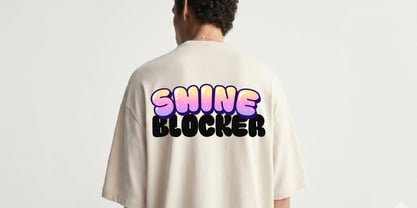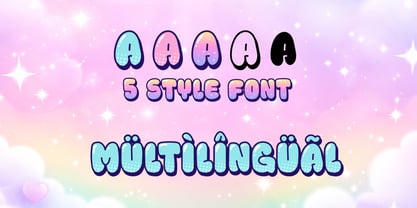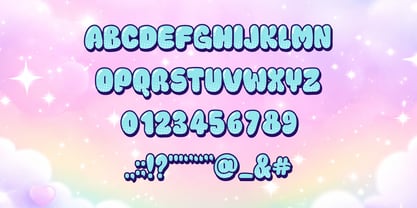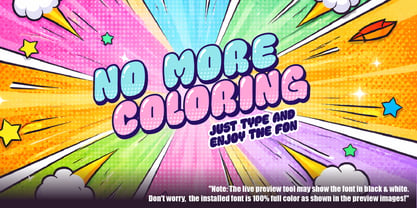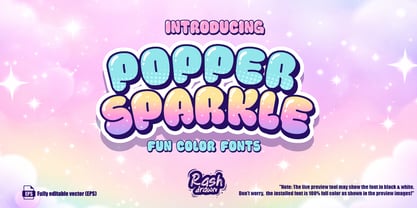
Popper Sparkle
by Rashdrawn
The Popper Sparkle Font Family was designed by Dadan Wildan and published by Rashdrawn. Popper Sparkle contains 5 styles and family package options. More about this family
Add a Splash of Joy and Magic to Your Designs! Meet POPPER SPARKLE, Color fonts that blends playful bubble shapes with magical textures. Whether you want the fresh, modern look of a hexagonal pattern or the dreamy, enchanting vibe of a star-studded gradient, this font has it all in one package! Forget about complex layering or manual coloring. POPPER SPARKLE allows you to type directly in full color, giving your work an instant 3D, glossy, and professional finish that pops off the screen. What You Get: Five Unique Styles: Switch between the "Fresh Hexagonal" pattern and the "Dreamy Sparkle" gradient. Color Font: High-quality technology for instant vibrant results. Full Multilingual Support: Perfect for global projects with a complete set of accented characters. Numerics & Punctuation: All the essentials included to make your workflow seamless. Perfect For: Kawaii Sticker Packs & Stationery Children’s Book Covers & Branding Social Media Graphics & YouTube Thumbnails Streetwear & Youth Apparel (T-shirts, Hoodies) Birthday Invitations & Party Decor Technical Note: fonts are supported by modern software like Adobe Photoshop CC 2017+, Illustrator CC 2018+, and Procreate. Standard black-and-white versions may be shown in some preview tools, but the installed font is 100% full color.